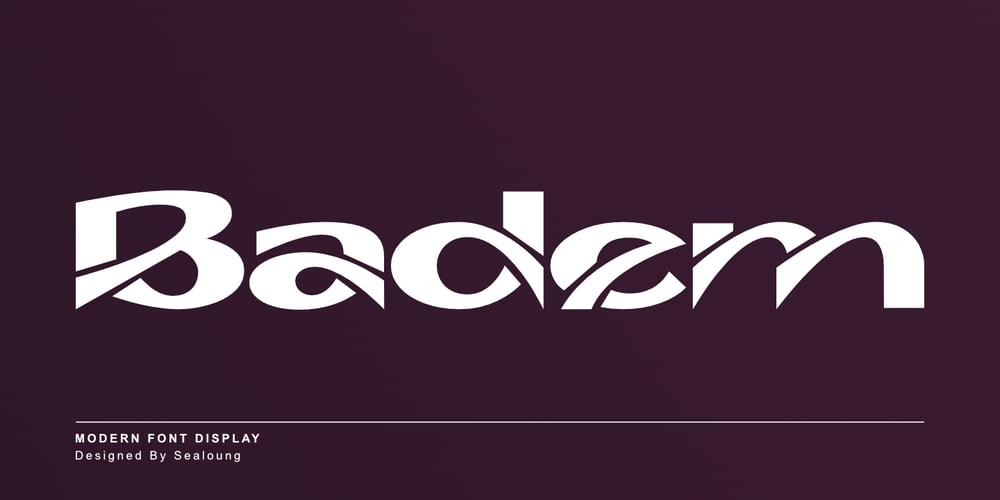
Badem
Badem font
Badem Font Family was designed by Saiful Anwar and published by Sealoung. Badem contains 1 styles and family package options. Introducing Badem Modern Font Display is a cutting-edge typeface designed to elevate your brand identity. With meticulous precision, every detail of Badem is mathematically perfected to captivate your audience. This versatile typeface is ideal for corporate use and excels in a wide range of creative applications, including branding, logos, titles, headlines, posters, digital ads, and more.Badem features a comprehensive character set, including uppercase and lowercase letters, numbers, punctuation, and extensive multilingual support.